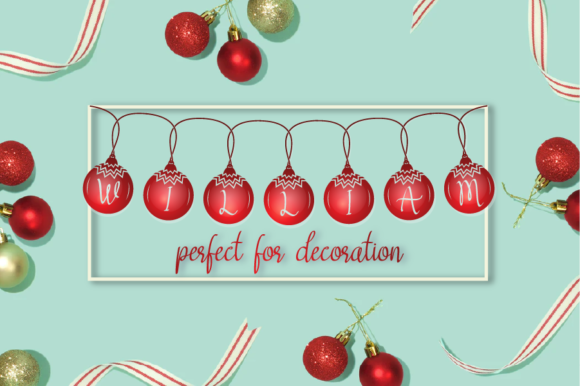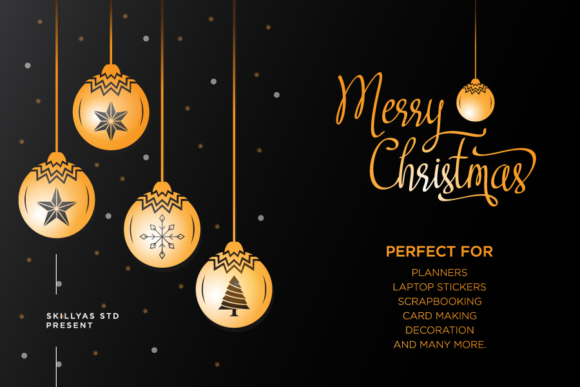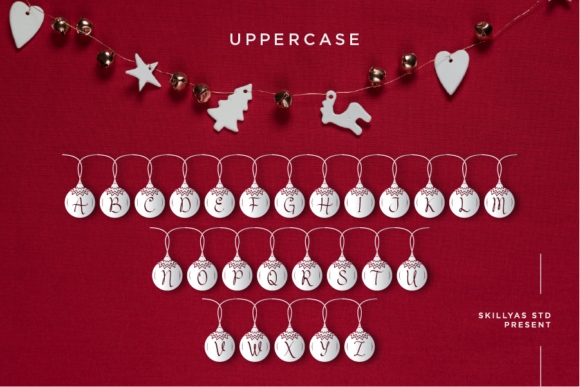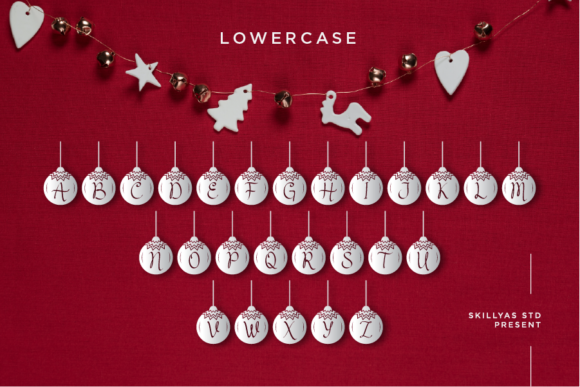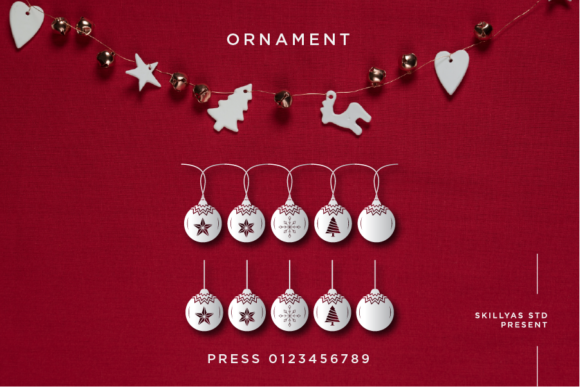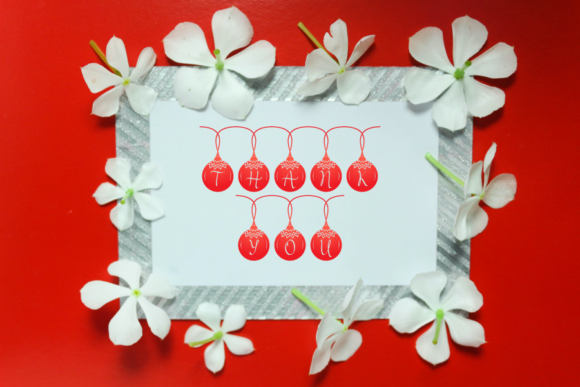
Introduction to Christmas Glass Ball Font
Christmas Glass Ball is a lovely and festive decorative font.
Fall for its ravishing style and use it to create gorgeous wedding invitations, beautiful stationary art, eye-catching social media posts, and much more .
Key Features of Christmas Glass Ball Font